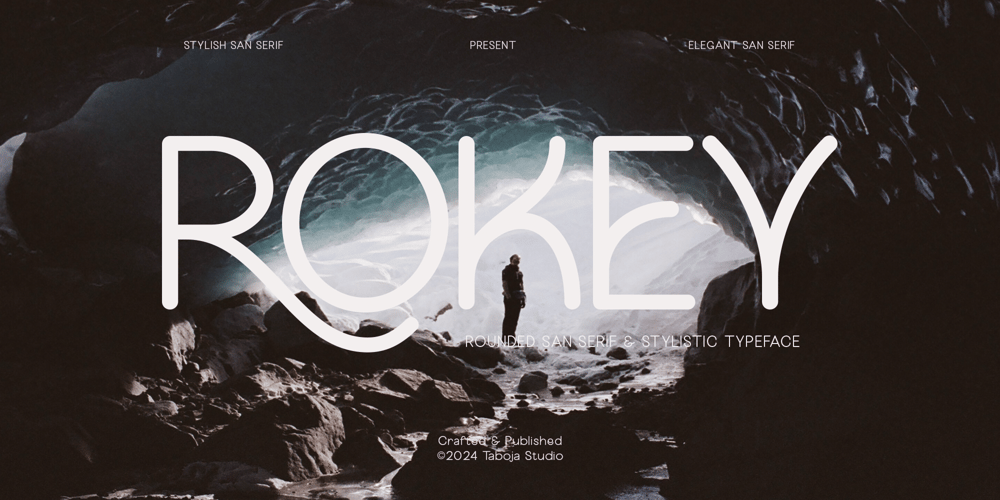
Rokey Stylistic Sans Serif Font Family was designed by Yusilo Oktaprima Ardani and published by Taboja Studio. Rokey Stylistic Sans Serif contains 1 styles and family package options. Introducing Rokey Sans Serif Font, a harmonious blend of beauty and versatility. This typeface is thoughtfully designed with exquisite ligatures and graceful alternates, elevating your designs to new levels of sophistication.The rounded contours of each letter form a perfectly balanced aesthetic, adding a touch of modernity and friendliness to your projects. Ideal for a wide range of design applications, this font seamlessly integrates into various contexts, from branding and editorial design to web interfaces.Embrace the versatility and elegance of our Sans Serif Font with beautiful ligatures, graceful alternates, and a well-balanced rounded shape. It’s the perfect choice for expansive design needs, providing you with the tools to make a lasting impression across a spectrum of creative projects.Rokey Sans Serif Font Features: Regular Uppercase And Lowercase Alternates And Ligatures Numerals & Punctuation Accented characters Multilingual Support Unicode PUA Encoded We highly recommend using a program that supports OpenType features and Glyphs panels such as Adobe Illustrator, Adobe Photoshop CC, Adobe Indesign, or CorelDraw, so you can see and access all Glyph variations.While using this product, if you encounter any problem or spot something we may have missed, please don’t hesitate to drop us a message. We’d love to hear your feedbacks in order to further fine-tune our products.Stay creative and have a wonderful day.